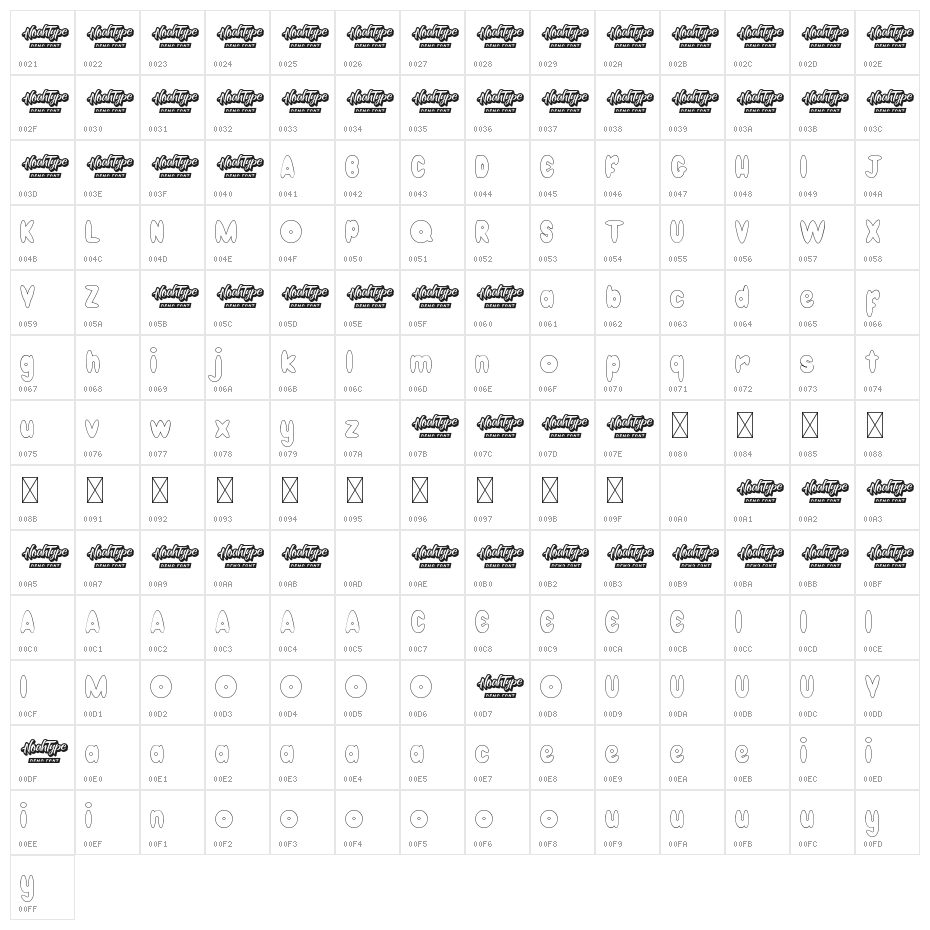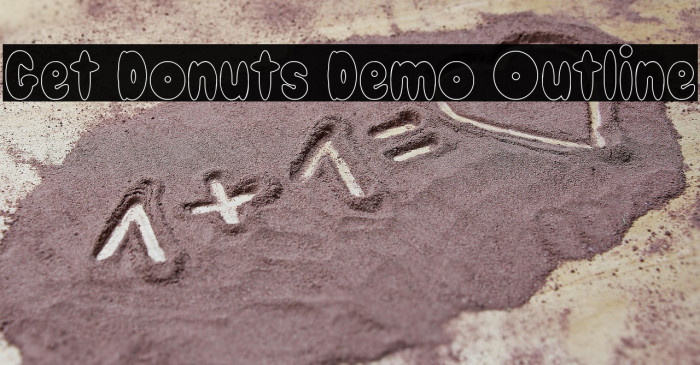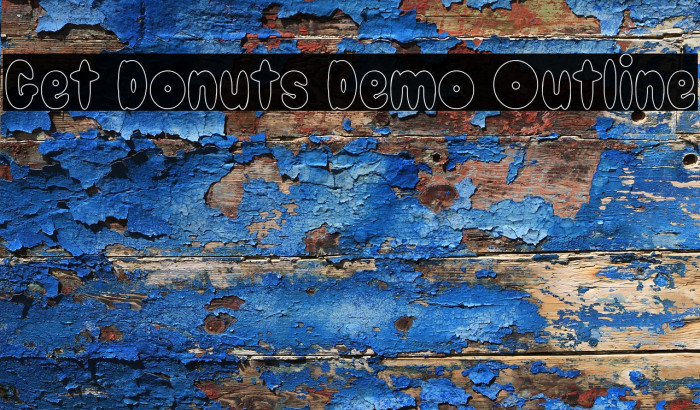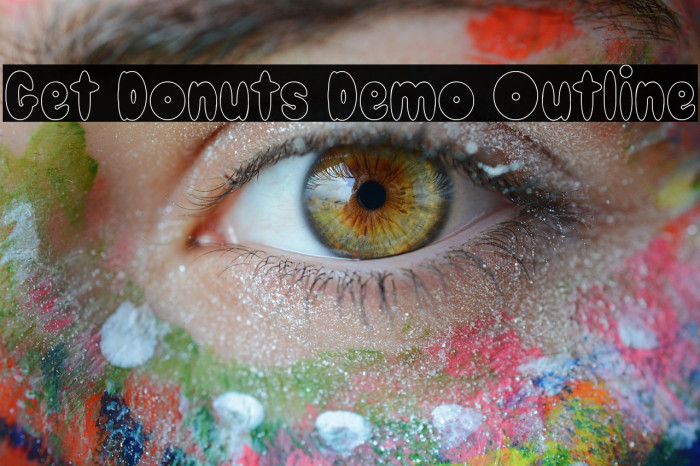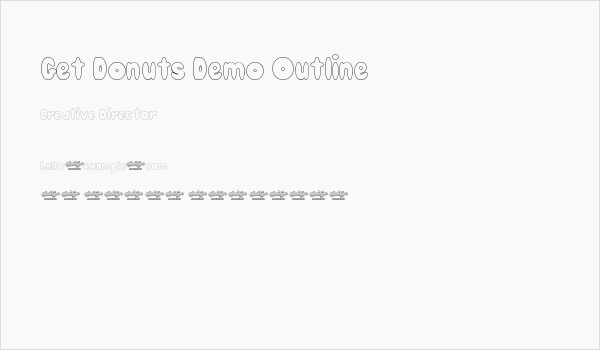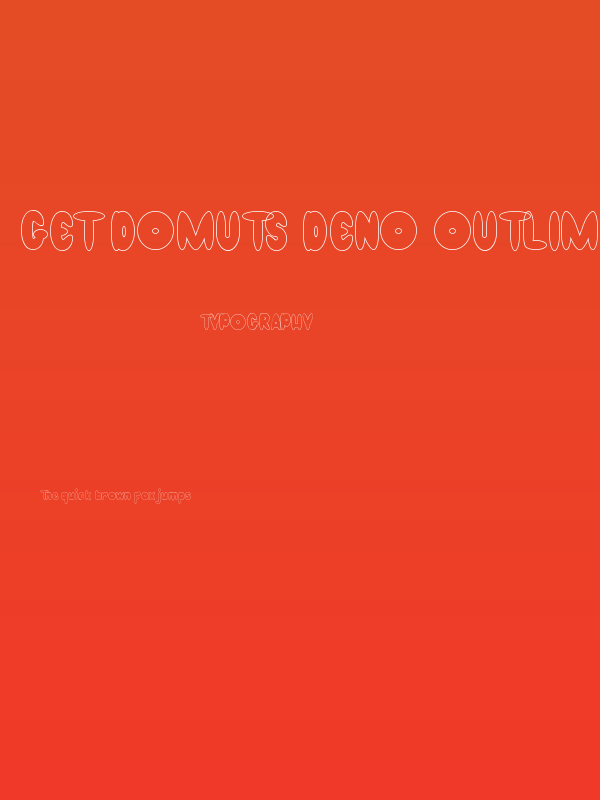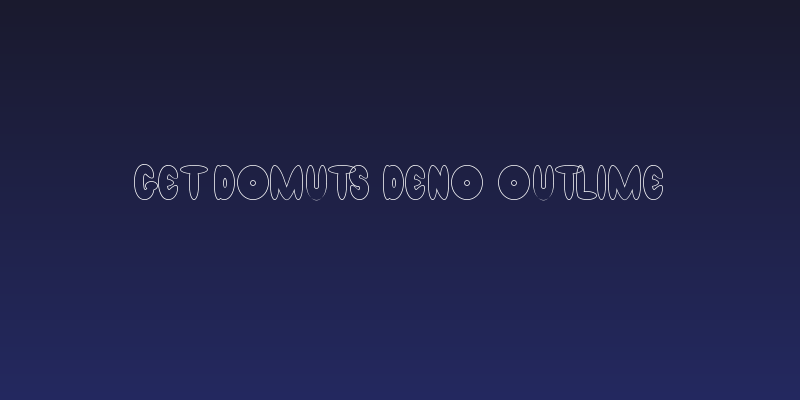
Get Donuts Demo Outline Font
Get Donuts Demo Outline Description
This playful and whimsical font features an outline style that gives each character a bubbly and fun appearance. The letters are rounded and have a consistent thickness throughout, creating a cohesive and friendly look. The font is highly legible, making it suitable for a variety of creative projects. Its unique style is reminiscent of hand-drawn lettering, adding a personal touch to any design. The font's outline nature allows for easy customization, such as filling in colors or patterns, making it versatile for different themes and occasions.
| Proposed Projects | Ideal for children's book covers, playful branding, party invitations, and creative posters. |